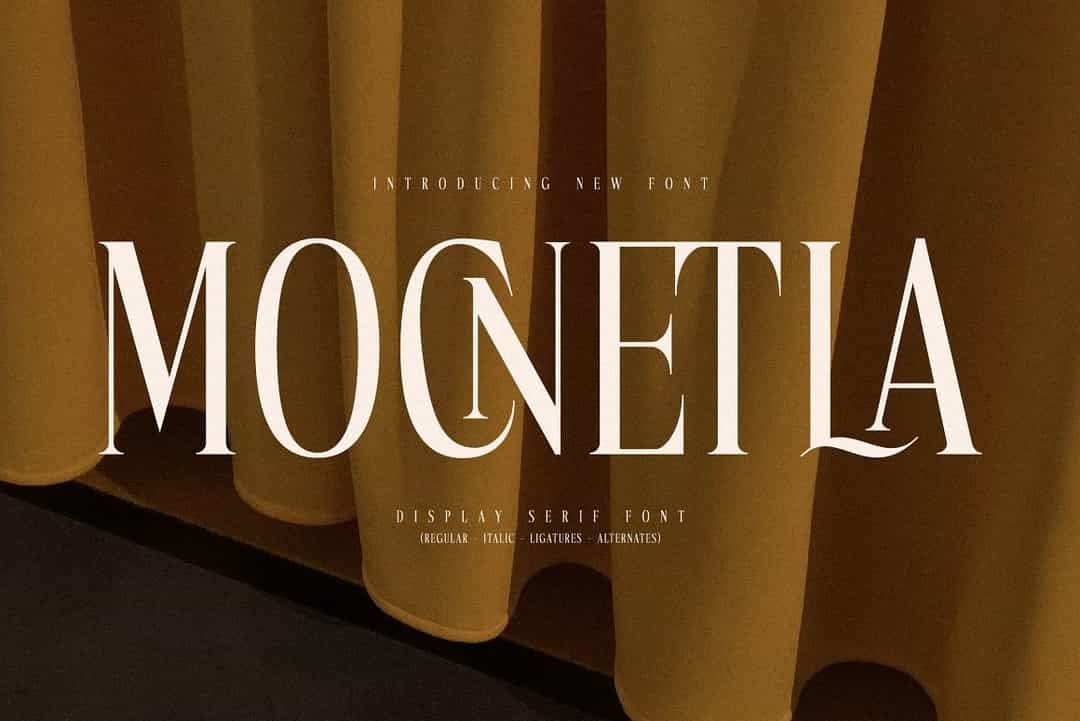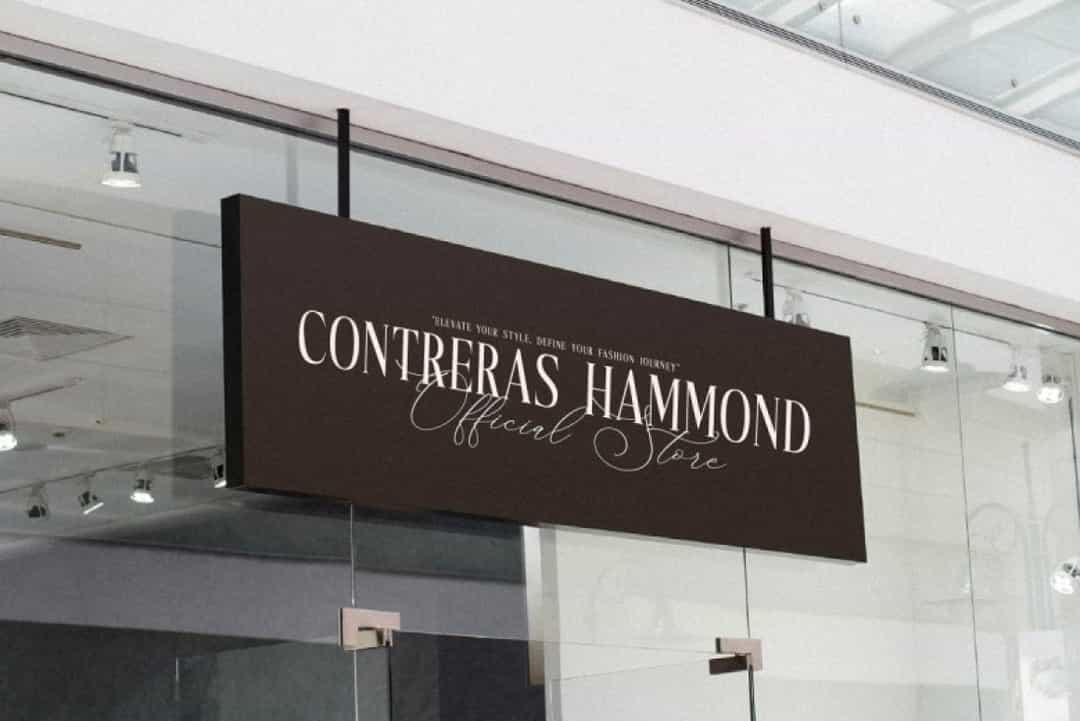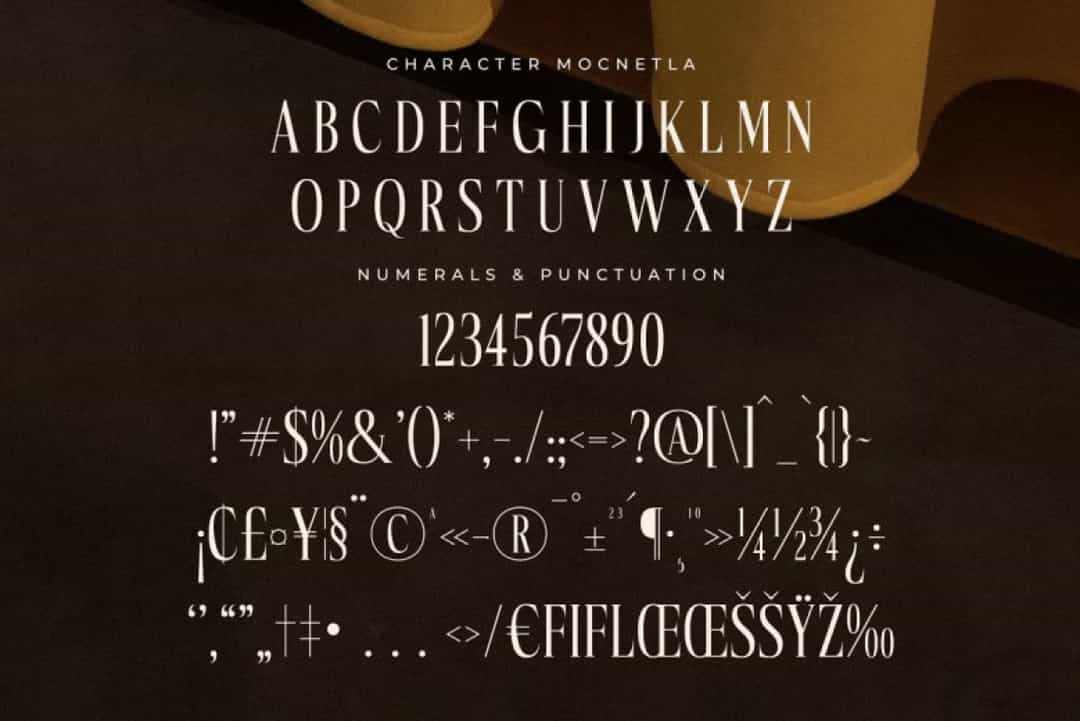
Mocnetla Font, designed by Storytype, is a modern yet timeless serif font with its own distinct style and modern appearance. Perfect for creating elegant logos, movie or book name designs, fashion clothing brand names, magazines lettering as well as quotes this font can also create beautiful logos or quotes with ease.